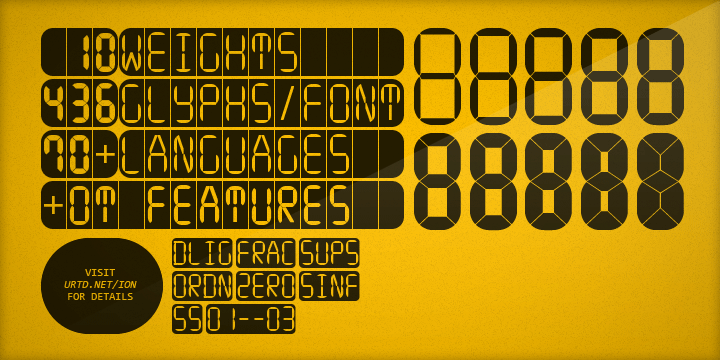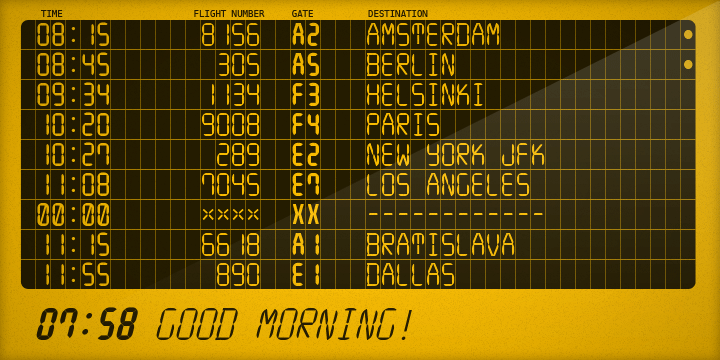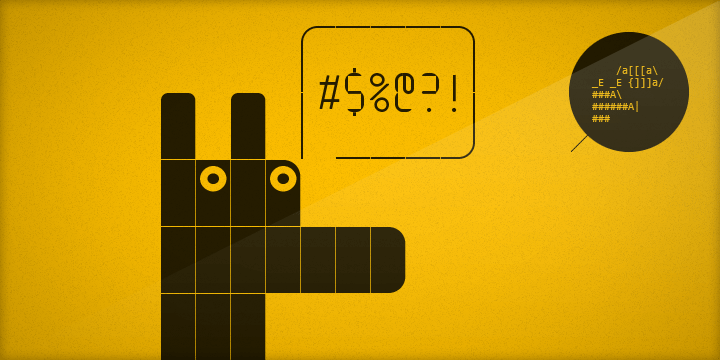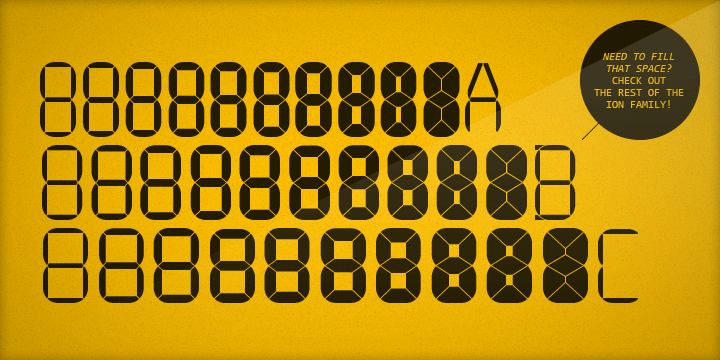
ION A Font Family
ION A is a part of the ION superfamily, which consists of 3 families: condensed (ION A), normal (ION B) and wide (ION C), each having a compelling range of 10 weights.
Styles Thin to Black have 436 glyphs supporting more than 70 Latin-based languages and the three heaviest weights, named U1, U2 and U3 have 94 basic glyphs.
ION glyphs are based on the classic 7-segment display, but for readability and aesthetic reasons, some alphabetic characters don’t follow this matrix strictly. In case you like things in order, don’t worry, there’s a stylistic set that replaces all characters with their strict alternatives. The special characters, such as #, @ or % are composed of special segments, but are designed to fit seamlessly within the whole character set.